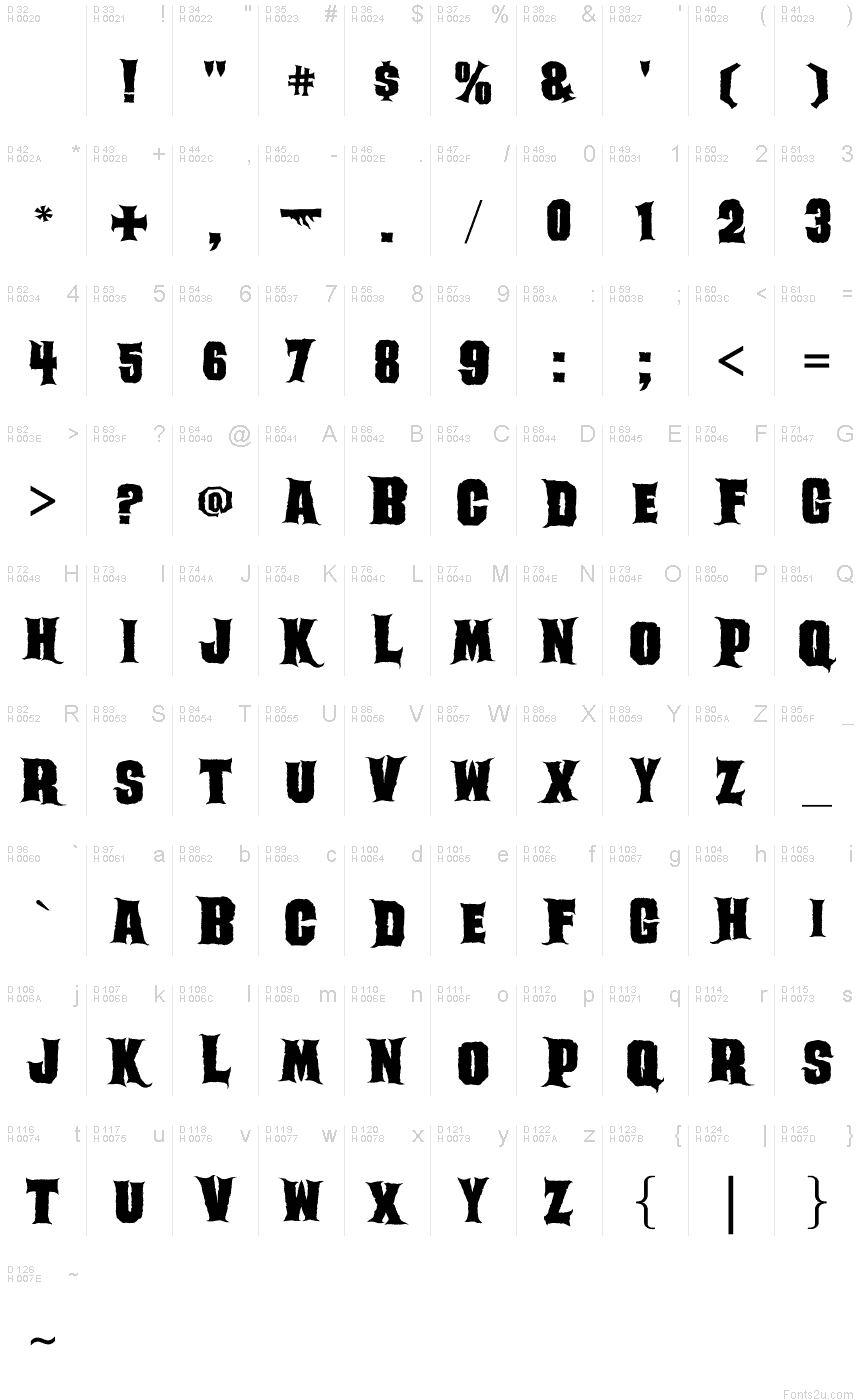
Ghoulish by Gary Pullin is a free horror display font with hulking capitals and ragged, gouged edges. The letters crowd forward in uneven blocks, with blunt slab-like strokes and sharp notches that suggest torn paper or battered wood.
Its horror-poster roots point first to haunted attraction posters. The distressed shapes also suit monster-movie promotions, turn Halloween packaging into part of the artwork, and lend heavy-metal merchandise a hand-cut menace. Across those settings, the same chipped silhouette connects theatrical scares, lurid pulp imagery, and rough music graphics through its handmade attack.